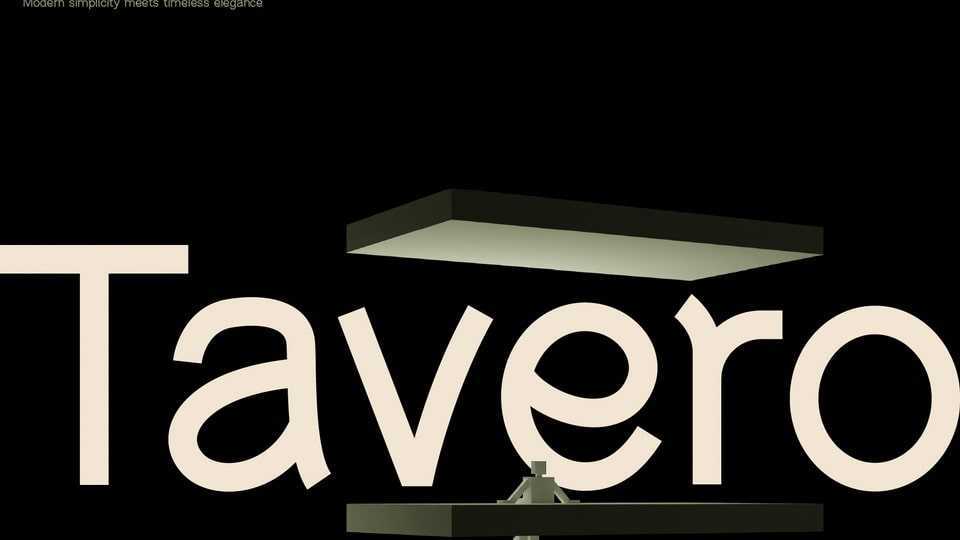
Tavero Font › Fontesk – Fonte Grátis
Tavero Font › Fontesk
Download Tavero font, a modern sans serif typeface that embodies simplicity and sophistication designed with smooth curves, balanced proportions, and clean geometry.